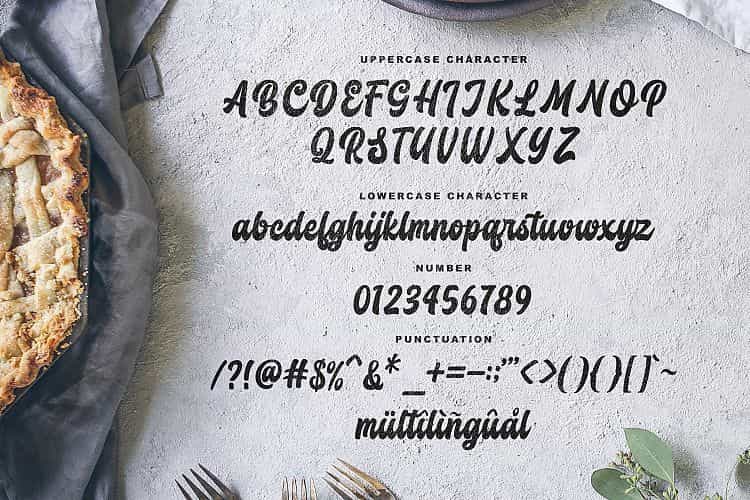
Introducing Butchery Font. It’s a new retro script called Butchery. The butchery was motivated by the food posters, food menus and food packaging. However, the good that butchery brings to the world is logos, food posters, food menus, food packaging and many more.